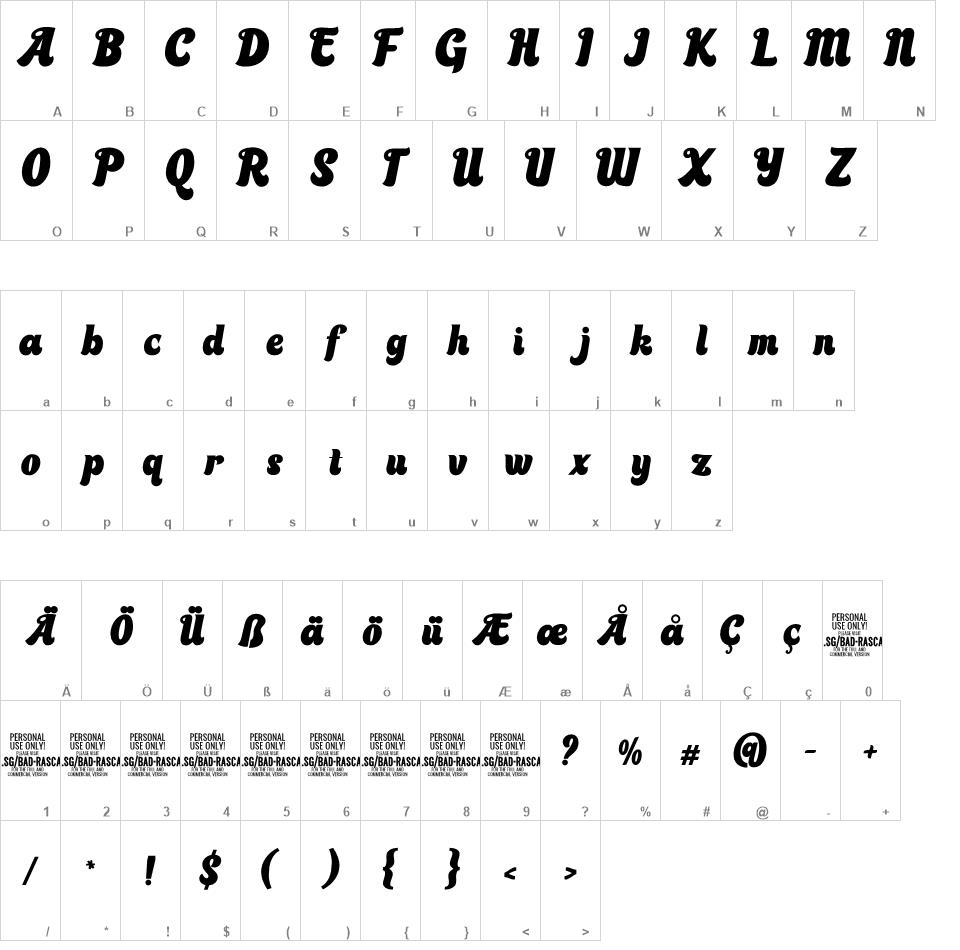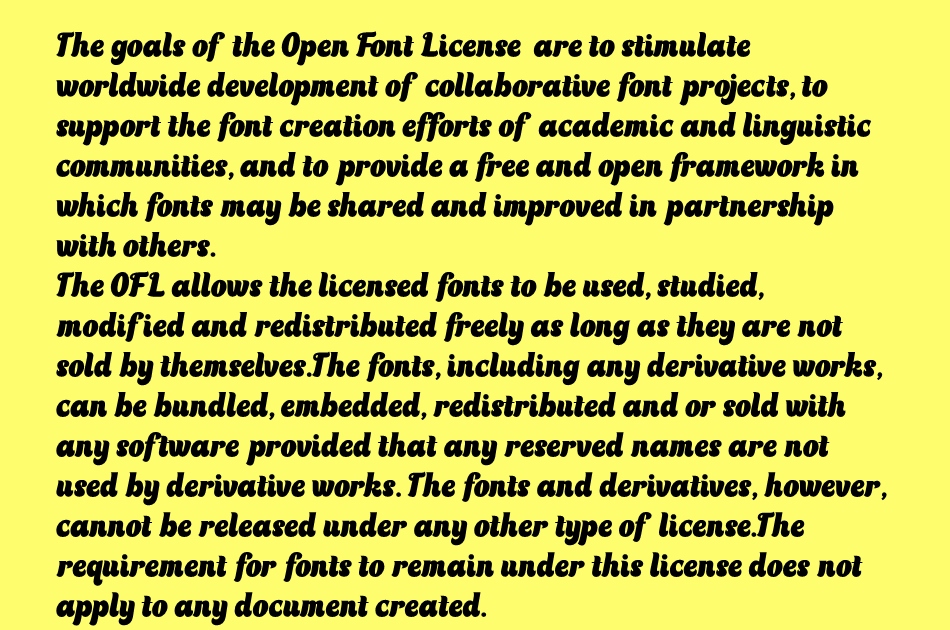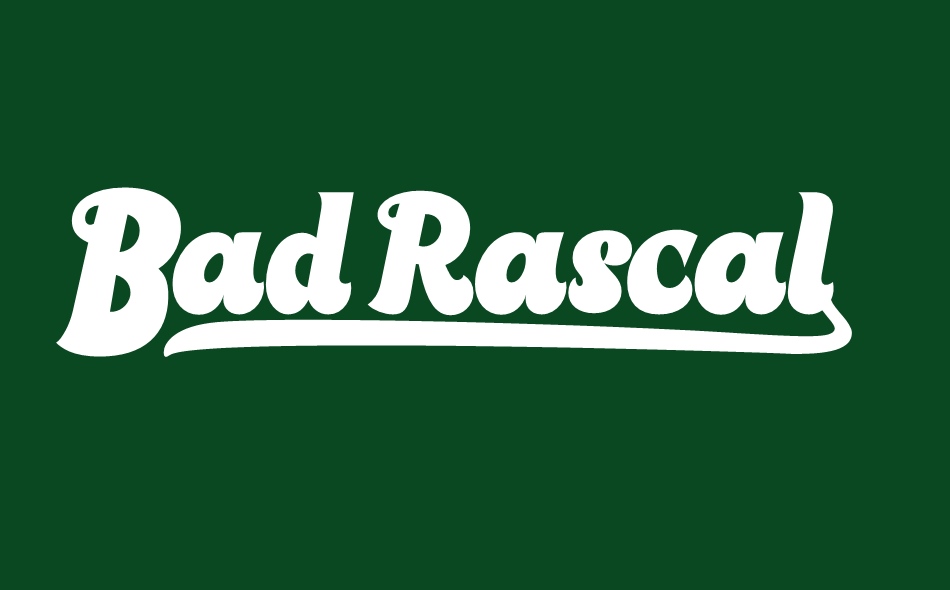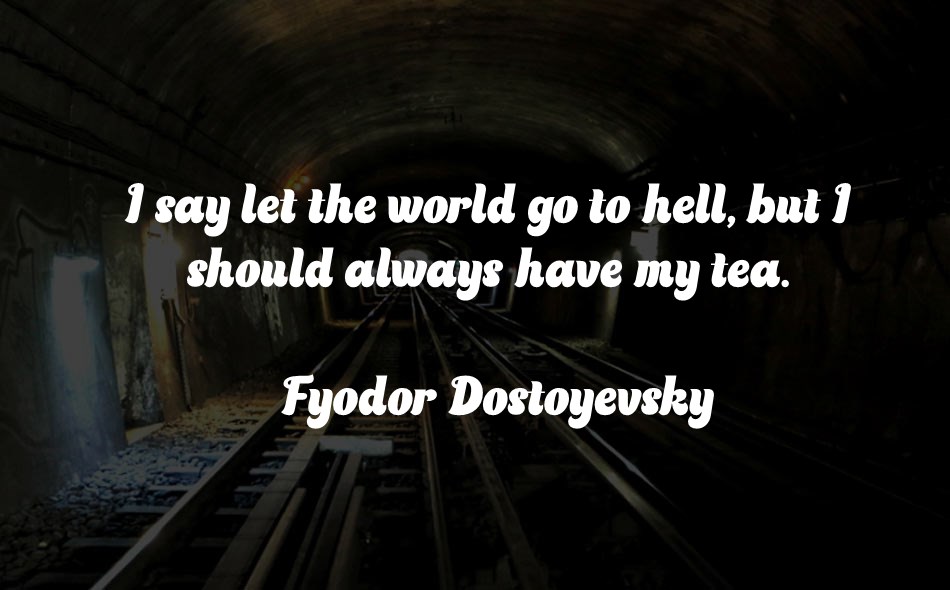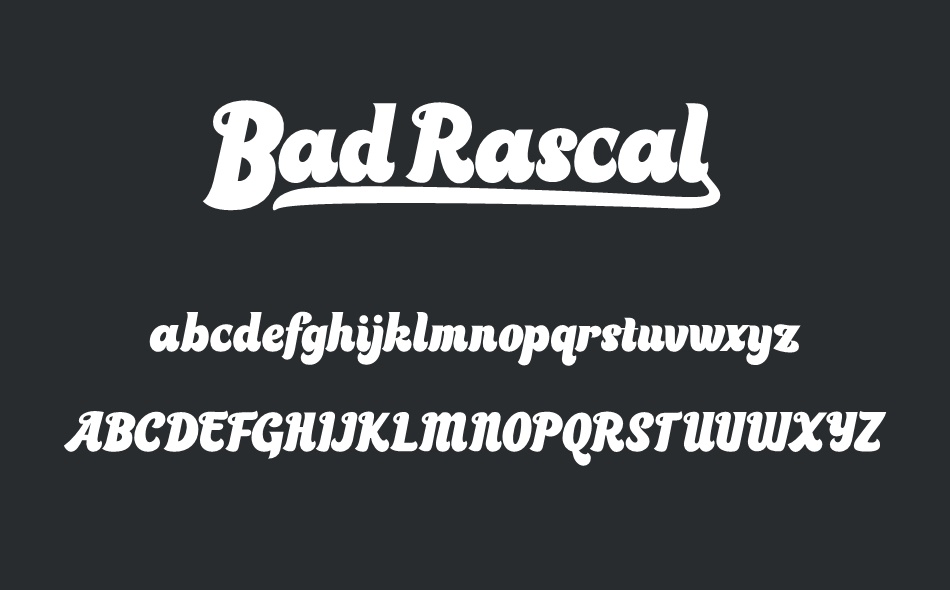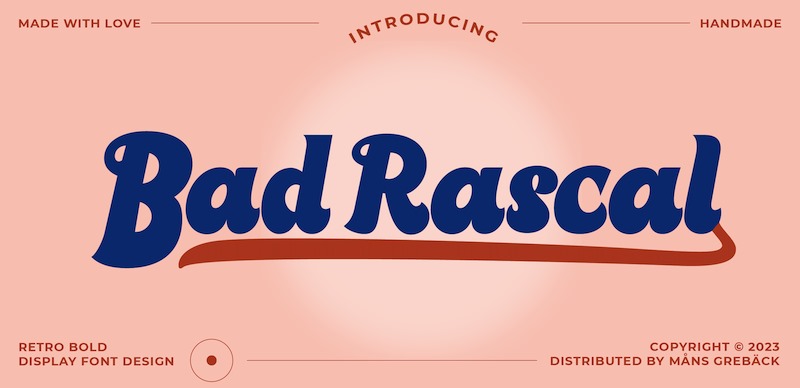
Use underscore _ to make a swash underline.
Example: Powers_
Use multiple underscores to make a swashes of different lengths.
Example: Baddest_______
Bad Rascal is a script typeface.
This flowing brush font in a fat style gives any project the attention it deserves. Use it for a bold logotype or headline to give your work that extra-bold look.
Use underscore _ to make a swash underline. Example: Powers_
Use multiple underscores to make a swashes of different lengths. Example: Baddest_______ (Download required.)
The Bad Rascal family consists of the fonts Regular and Italic.
The font is built with advanced OpenType functionality and has a guaranteed top-notch quality, containing stylistic and contextual alternates, ligatures and more features; all to give you full control and customizability. It has extensive lingual support, covering all Latin-based languages, from Northern Europe to South Africa, from America to South-East Asia. It contains all characters and symbols you'll ever need, including all punctuation and numbers.